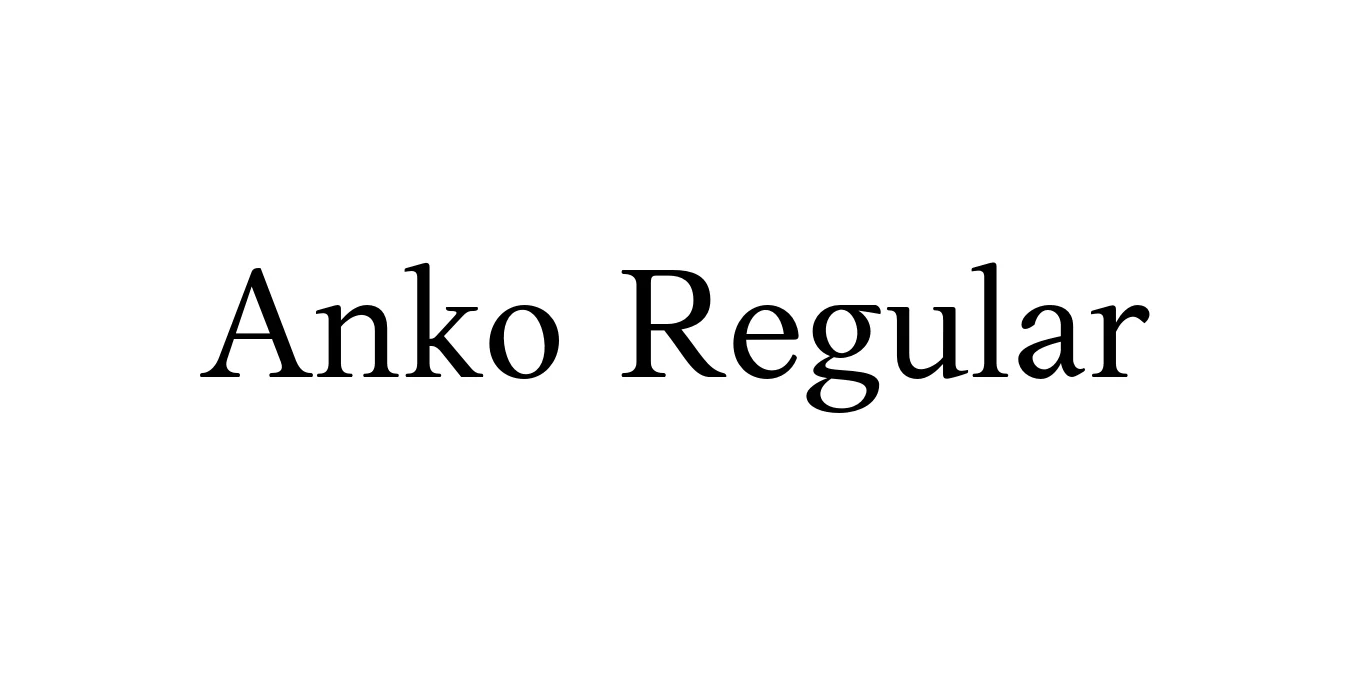
Anko Regular
Designed by Situjuh Nazara
Anko Regular is a sophisticated serif typeface designed by Situjuh Nazara of 7NTypes. It is characterized by its classic, old-style aesthetic which blends traditional typographic principles with modern clarity. The Regular weight is particularly notable for its balanced proportions, elegant strokes, and well-defined serifs, making it a reliable choice for designers seeking a timeless look that commands respect and authority.
Beyond its visual appeal, Anko Regular is engineered for high legibility across various mediums. Its generous x-height and thoughtful kerning make it exceptionally well-suited for long-form reading in editorial contexts. Whether applied to print publications or digital interfaces, this font brings a sense of professional polish and academic refinement to every character on the page.
Anko Regular Best Uses
Perfect for body text in magazines, journals, and book interiors.
Excellent for luxury logos, business cards, and corporate identity projects.
Ideal for high-end blog posts and online articles requiring a readable serif.